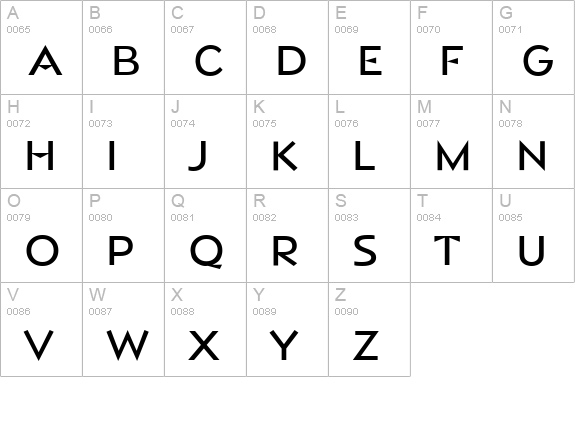
NapoliSerial-Medium-Regular is a balanced, medium-weight variant in the NapoliSerial typeface family \xE2\x80\x94 well suited to sub-headlines, navigation, and balanced editorial work.
Discover the elegant and versatile NapoliSerial-Medium-Regular font, a timeless typeface that seamlessly blends sophistication with readability. With its balanced letterforms and clean lines, this font is perfect for a wide range of design projects, from branding to editorial layouts. The NapoliSerial-Medium-Regular font exudes a sense of modernity while maintaining a classic appeal, making it a must-have addition to any designer's toolkit. Best of all, NapoliSerial-Medium-Regular is available for free download at FontsMarket.com, allowing you to elevate your designs without breaking the bank. Whether you're designing a sleek website or crafting eye-catching marketing materials, this font offers endless possibilities for creativity. Embrace the beauty and functionality of NapoliSerial-Medium-Regular in your next project and watch your designs come to life with style and sophistication.